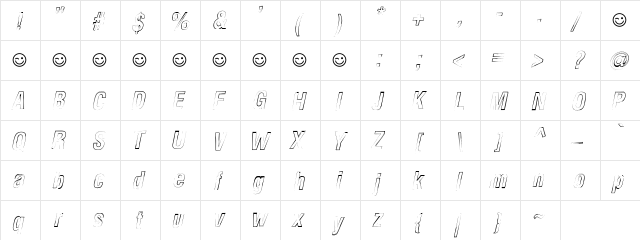
Newside FP Outline Italic
Design Context for Newside FP Outline Typeface
Newside FP Outline is built around its visual character rather than neutral utility — its distinctive forms are designed to make an impression at display sizes. Its italic angle brings a sense of urgency and motion to the letterforms.
Font Pairing: Pair with a clean neutral sans-serif for body copy to let Newside FP Outline's character lead without overwhelming the composition.
Pro Tip: Treat Newside FP Outline as the centrepiece of your typographic hierarchy. One strong heading set in a decorative face can carry an entire layout.